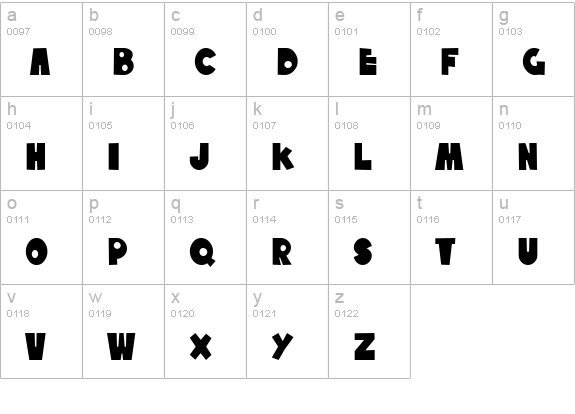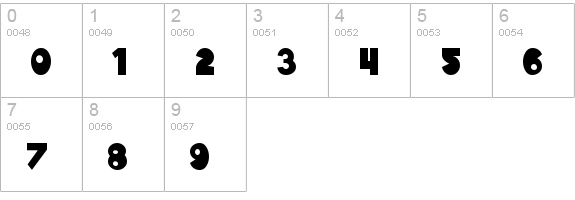
SF Tattle Tales Font Details
Introducing SF Tattle Tales, a captivating and versatile font that will add a touch of elegance and sophistication to your designs. This font exudes a sense of playfulness with its whimsical curves and graceful strokes, making it perfect for a wide range of creative projects. SF Tattle Tales is a font that effortlessly combines modern design elements with a hint of retro charm. Its unique letterforms are meticulously crafted to create a visual harmony that is both eye-catching and easy to read. Whether you are designing a logo, a poster, or a wedding invitation, this font will surely make a lasting impression. One of the most remarkable features of SF Tattle Tales is that it is completely free. Yes, you read that right! This stunning font is freely available to download at FontsMarket.com, allowing designers and creatives from all walks of life to access and utilize this incredible typeface without any cost. With SF Tattle Tales, you can explore endless possibilities and unleash your creative genius without worrying about breaking the bank. Its versatility allows it to seamlessly adapt to various design styles, from vintage to contemporary, making it an invaluable asset in your font library. So why wait? Don't miss the opportunity to elevate your designs with this remarkable font. Download SF Tattle Tales for free at FontsMarket.com and let your imagination run wild. Let this font be the secret ingredient that sets your designs apart and leaves a lasting impression on your audience.